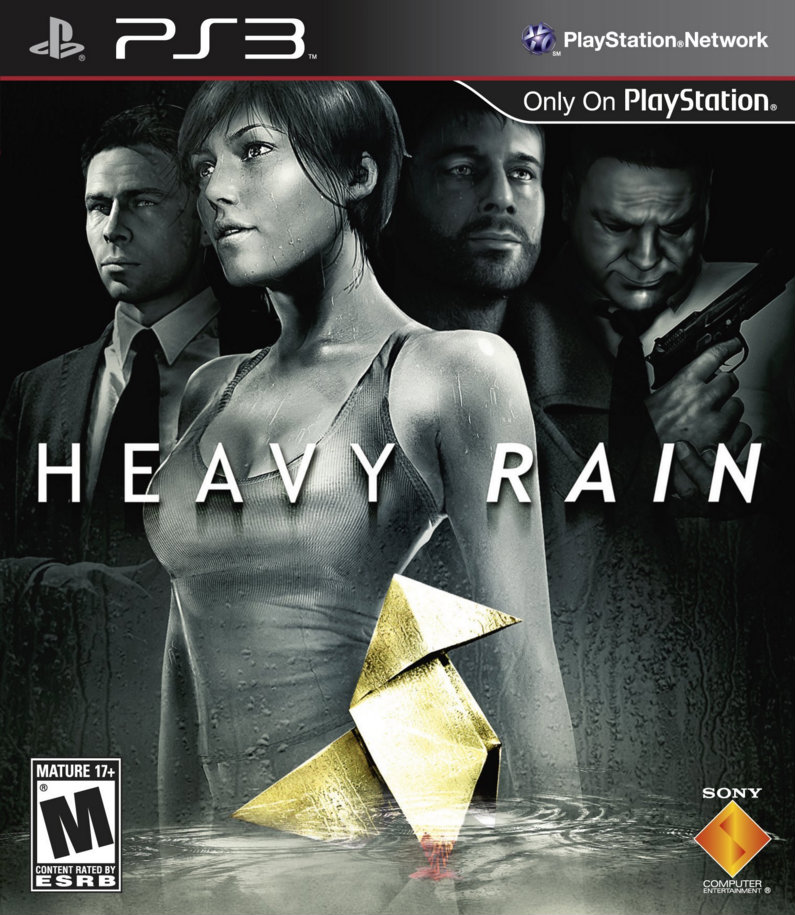
Heavy Rain (video game) Font
Action & AdventureHeavy Rain is a 2010 interactive drama and action-adventure video game developed by Quantic Dream and published by Sony Computer Entertainment. The game follows four characters with ties to a serial killer who drowns victims during rain. The Heavy Rain game logo is designed based on two variants of Trebuchet: Bold & Bold Italic. Trebuchet is a humanist sans-serif designed by Vincent Connare for Microsoft in 1996.